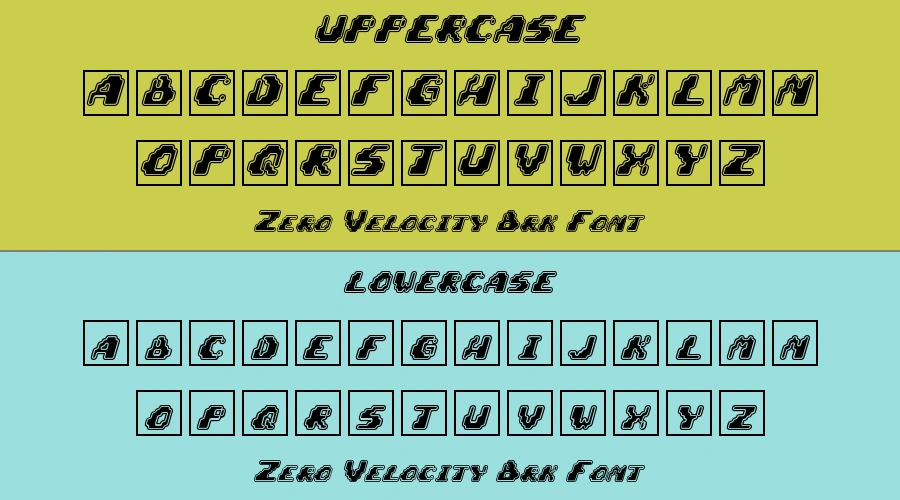
About Zero Velocity Brk Font
When typographic excellence matters most, Zero Velocity Brk Font delivers through its thoughtful blend of decorative alternates and clarity. Specially crafted for engineering drawings, it offers the originality and literary appropriateness required for sophisticated design work. Every detail serves a purpose.
The character set showcases thoughtful details like harmonious shapes alongside functional oldstyle figures. This proves especially valuable in reference books, where screen rendering directly influences results. Particular attention was paid to counter size and contemporary relevance during development.